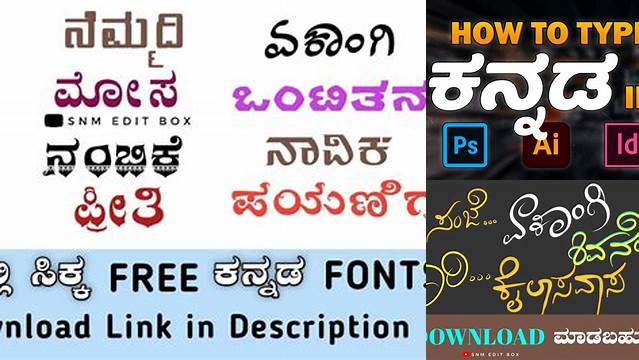
Kannada Fonts: Enhance Your Photoshop Designs
Hey guys! Ever wanted to add a touch of Kannada to your Photoshop projects? It's all about finding the right Kannada fonts that not only look great but also work seamlessly with Photoshop. Let's dive into everything you need to know about using Kannada fonts in Photoshop, from finding them to installing them and making the most of them in your designs.
1. Understanding the Importance of Kannada Fonts in Design
Why bother with Kannada fonts in the first place? Well, if you're targeting an audience that speaks Kannada, using the right fonts can make your designs way more impactful and relatable. Think about it: clear, beautiful Kannada text can elevate your posters, social media graphics, and even website mockups. It’s not just about translating words; it’s about conveying the message with the right cultural and linguistic nuances. This is crucial for brands aiming to connect authentically with Kannada-speaking customers, ensuring that the message resonates deeply and fosters a stronger connection. Additionally, using high-quality Kannada fonts demonstrates respect and understanding for the language and culture, which can significantly enhance brand perception and customer loyalty. In essence, the integration of well-chosen Kannada fonts goes beyond mere aesthetics; it’s a strategic decision that can drive engagement and create a more meaningful impact in your design projects. So, whether you are creating marketing materials, educational content, or artistic expressions, the right Kannada fonts can make all the difference in how your message is received and understood.
2. Where to Find High-Quality Kannada Fonts
Finding good Kannada fonts can sometimes feel like searching for a needle in a haystack, but don't worry, I've got you covered. Google Fonts is a fantastic starting point – it offers a wide variety of free Kannada fonts that are easy to download and use. Another great resource is specialized font foundries that focus on Indian languages; these often have higher-quality and more unique options. Websites like Fontspace and DaFont also offer a selection, but always double-check the licensing to make sure you can use the fonts for your intended purpose. Remember, investing a bit of time in finding the right font can drastically improve the overall look and feel of your design. Also, explore forums and communities dedicated to Kannada typography for recommendations and hidden gems. Participating in these groups can provide valuable insights and connect you with designers who share your passion for beautiful Kannada text. So, take your time, explore different options, and don’t be afraid to experiment until you find the Kannada fonts that perfectly match your project's needs.
4. Adding Kannada Text in Photoshop
Alright, let's get some Kannada text into your Photoshop project. Select the Type Tool (the one that looks like a 'T'), click on your canvas, and start typing. If you can't type in Kannada, you might need to enable the Kannada keyboard layout in your operating system settings. In Windows, go to Settings > Time & Language > Language, and add Kannada as a language. On a Mac, go to System Preferences > Keyboard > Input Sources and add the Kannada keyboard. Once that’s set up, you can switch between languages using the language bar or a keyboard shortcut. Remember to select your newly installed Kannada font from the font dropdown menu in Photoshop to see your Kannada text appear correctly. Practice typing a few words to get comfortable with the keyboard layout, and soon you'll be adding beautiful Kannada text to all your designs!
6. Best Practices for Using Kannada Fonts in Graphic Design
To make your designs truly shine, keep a few best practices in mind. Choose Kannada fonts that are legible and appropriate for the context. Avoid using too many different fonts in one design, as this can look cluttered and unprofessional. Pay attention to kerning and leading to ensure that the text is easy to read. Also, consider the color and contrast of your text against the background to ensure readability. Test your designs on different devices and screen sizes to make sure the text looks good everywhere. By following these simple guidelines, you can create visually appealing and effective designs that resonate with your target audience. Remember, good typography is an art form, so take the time to learn and experiment with different techniques to find what works best for you.
7. Pairing Kannada Fonts with Other Typefaces
Mixing Kannada fonts with other typefaces can create a visually interesting and harmonious design. When pairing fonts, look for typefaces that complement each other in terms of style and weight. For example, you might pair a traditional Kannada font with a modern sans-serif font for a contemporary look. Or, you could pair a bold Kannada font with a lighter Latin font for a balanced contrast. Experiment with different combinations to see what works best for your project. Use online tools and resources to find font pairings that others have found successful. Just be sure to maintain a consistent visual hierarchy and ensure that the fonts are easy to read. With a little creativity, you can create stunning designs that showcase the beauty of both Kannada and other languages.
8. Exploring Different Styles of Kannada Fonts
Kannada fonts come in a variety of styles, from traditional and ornate to modern and minimalist. Exploring these different styles can help you find the perfect font for your project. Traditional Kannada fonts often feature intricate details and a classic aesthetic, while modern fonts tend to be cleaner and more streamlined. Some fonts are designed specifically for headlines, while others are better suited for body text. Consider the overall tone and message of your design when choosing a font style. Experiment with different styles to see how they impact the visual appeal and readability of your text. Remember, the right font can make all the difference in conveying the right message and creating a memorable design.
9. Using Kannada Fonts for Logos and Branding
When designing a logo or branding materials for a Kannada-speaking audience, choosing the right Kannada font is crucial. The font should reflect the personality and values of your brand. Consider the target audience and the overall message you want to convey. A well-chosen Kannada font can create a strong and memorable brand identity. Ensure that the font is legible and scalable, so it looks good in both small and large sizes. Test the font in different contexts and applications to ensure consistency. Remember, your logo is the face of your brand, so choose a font that makes a lasting impression.
10. Creating Text Effects with Kannada Fonts in Photoshop
Photoshop offers a wide range of text effects that can enhance the visual appeal of your Kannada fonts. Experiment with drop shadows, glows, bevels, and other effects to create eye-catching designs. Use layer styles to add depth and dimension to your text. Be careful not to overdo it; too many effects can make the text look cluttered and distracting. Consider the overall design and choose effects that complement the font and the background. Remember, the goal is to enhance the text, not to obscure it. With a little creativity, you can create stunning text effects that make your designs stand out.
11. Optimizing Kannada Text for Web Use
When using Kannada fonts on the web, it's important to optimize them for performance and readability. Use web-safe fonts or embed fonts using CSS to ensure that the text displays correctly on all devices. Optimize the font size and line height for readability. Use CSS text effects to enhance the visual appeal of the text. Test your website on different browsers and devices to ensure that the text looks good everywhere. Remember, a well-optimized website provides a better user experience and can improve your search engine rankings.
12. Common Mistakes to Avoid When Using Kannada Fonts
Even experienced designers can make mistakes when working with Kannada fonts. One common mistake is choosing a font that is not legible. Another mistake is using too many different fonts in one design. Overusing text effects can also be a problem. Make sure to proofread your text carefully to avoid typos and grammatical errors. Avoid using fonts that are not properly licensed. By being aware of these common mistakes, you can avoid them and create more professional and effective designs.
13. The Future of Kannada Typography
The field of Kannada typography is constantly evolving. New fonts and technologies are emerging all the time. Designers are exploring new ways to use Kannada fonts in innovative and creative ways. The future of Kannada typography is bright, with endless possibilities for experimentation and innovation. Stay up-to-date with the latest trends and developments to stay ahead of the curve.
14. Resources for Learning More About Kannada Typography
There are many resources available for learning more about Kannada typography. Online tutorials, books, and workshops can provide valuable insights and guidance. Online forums and communities can connect you with other designers and experts in the field. Take advantage of these resources to expand your knowledge and skills. Continuous learning is essential for staying current and improving your craft.
15. Creating Custom Kannada Fonts
If you're feeling ambitious, you can even create your own custom Kannada fonts. Font creation software allows you to design and develop your own unique typefaces. This can be a challenging but rewarding process. Consider taking a font design course or workshop to learn the basics. With patience and dedication, you can create fonts that reflect your personal style and vision.
16. Understanding Kannada Script and Characters
To effectively use Kannada fonts, it's helpful to have a basic understanding of the Kannada script and characters. The Kannada script is derived from the Brahmi script and is used to write the Kannada language. The script consists of vowels, consonants, and diacritics. Familiarize yourself with the different characters and their pronunciations. This knowledge will help you choose the right fonts and create more accurate and legible designs.
17. The Importance of Kerning and Leading in Kannada Typography
Kerning and leading are essential aspects of typography that affect the readability and visual appeal of text. Kerning refers to the spacing between individual letters, while leading refers to the spacing between lines of text. Adjusting these settings can improve the overall appearance of your Kannada fonts. Pay attention to kerning and leading when designing text-heavy layouts. Experiment with different settings to find what works best for your font and design.
18. Using Kannada Fonts in Video Editing
Kannada fonts can also be used in video editing projects. Add titles, subtitles, and captions to your videos using Kannada fonts to reach a wider audience. Choose fonts that are legible and easy to read on screen. Consider the background and colors when selecting fonts. Animate the text to create visually engaging videos. Remember, good typography can enhance the overall quality and impact of your videos.
19. Designing Mobile Apps with Kannada Fonts
When designing mobile apps for Kannada-speaking users, it's important to choose fonts that are optimized for mobile devices. Use web-safe fonts or embed fonts using CSS to ensure that the text displays correctly on all devices. Optimize the font size and line height for readability. Use clear and concise language to make the app user-friendly. Test your app on different devices to ensure that the text looks good everywhere.
20. Accessibility Considerations for Kannada Fonts
When using Kannada fonts, it's important to consider accessibility for users with disabilities. Use sufficient contrast between the text and the background. Provide alternative text for images containing Kannada text. Use semantic HTML to structure your content. Test your designs with assistive technologies to ensure that they are accessible to all users. Remember, accessibility is an essential aspect of good design.
21. The Impact of Cultural Context on Font Choice
The cultural context of your design can influence your choice of Kannada fonts. Consider the target audience and the overall message you want to convey. Some fonts may be more appropriate for certain cultural contexts than others. Research the cultural significance of different fonts before making your selection. Be respectful of cultural traditions and sensitivities when choosing fonts.
22. Integrating Kannada Fonts with Other Design Elements
Kannada fonts should be integrated seamlessly with other design elements, such as images, colors, and layouts. Consider the overall visual harmony of your design. Use fonts that complement the other elements. Create a consistent visual style throughout your design. Remember, good design is about creating a cohesive and visually appealing experience.
23. Exploring Calligraphy Styles in Kannada Fonts
Calligraphy is a beautiful art form that can enhance the elegance and sophistication of your Kannada fonts. Explore different calligraphy styles and techniques. Use calligraphy fonts to create unique and personalized designs. Consider taking a calligraphy course or workshop to learn the basics. With practice and dedication, you can create stunning calligraphic designs.
24. The Role of Kannada Fonts in Preserving the Language
Kannada fonts play an important role in preserving and promoting the Kannada language. By using Kannada fonts in your designs, you are helping to keep the language alive and relevant. Support font designers who are creating high-quality Kannada fonts. Encourage others to use Kannada fonts in their work. Together, we can help ensure that the Kannada language continues to thrive.
25. Font Licensing and Usage Rights for Kannada Fonts
Before using any Kannada font in your designs, it's important to understand the font licensing and usage rights. Some fonts are free to use for personal and commercial purposes, while others require a license. Read the font license carefully before using the font. Make sure you have the necessary permissions to use the font for your intended purpose. Violating font licensing agreements can result in legal consequences.
26. Creating Multilingual Designs with Kannada Fonts
In today's globalized world, it's often necessary to create multilingual designs that include Kannada and other languages. When creating multilingual designs, choose fonts that are compatible with all the languages you are using. Use Unicode encoding to ensure that the text displays correctly. Pay attention to the layout and spacing of the text. Test your designs on different devices to ensure that the text looks good everywhere.
27. The Evolution of Kannada Fonts Over Time
Kannada fonts have evolved significantly over time, reflecting changes in technology, culture, and design trends. Early Kannada fonts were often based on traditional calligraphy styles. As printing technology advanced, new fonts were developed that were more legible and efficient to produce. Today, there is a wide variety of Kannada fonts available, ranging from traditional to modern styles. Understanding the history of Kannada fonts can provide valuable insights into their design and usage.
28. Resources for Finding Free Kannada Fonts
Finding free Kannada fonts can be a great way to save money on your design projects. There are many websites and resources that offer free Kannada fonts. However, it's important to be careful when downloading free fonts. Make sure the fonts are properly licensed and that they are of good quality. Avoid downloading fonts from untrusted sources, as they may contain viruses or malware. Some reputable sources for free Kannada fonts include Google Fonts, Fontspace, and DaFont.
29. Tips for Choosing the Right Kannada Font for Your Project
Choosing the right Kannada font for your project can be challenging, but it's an important step in creating effective designs. Consider the following tips when selecting a font: Define the purpose of your design. Consider the target audience. Choose a font that is legible and easy to read. Select a font that reflects the personality and values of your brand. Experiment with different fonts to see what works best. Get feedback from others before making your final decision.
30. Advanced Typography Techniques with Kannada Fonts
Once you have mastered the basics of using Kannada fonts, you can explore advanced typography techniques to create more sophisticated and visually appealing designs. Experiment with different text effects, such as drop shadows, glows, and bevels. Use kerning and leading to fine-tune the spacing of your text. Create custom text styles to maintain consistency throughout your designs. Explore the use of ligatures and alternate characters. With practice and experimentation, you can master advanced typography techniques and create truly stunning designs with Kannada fonts.